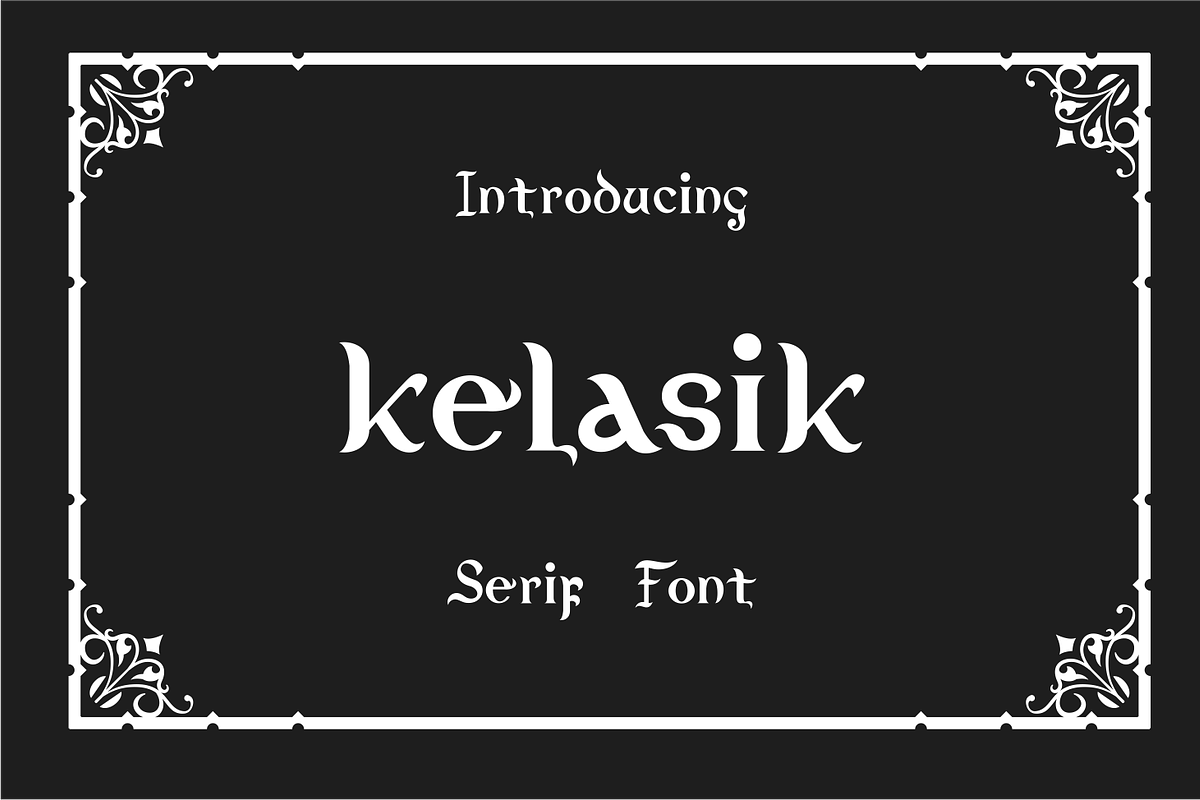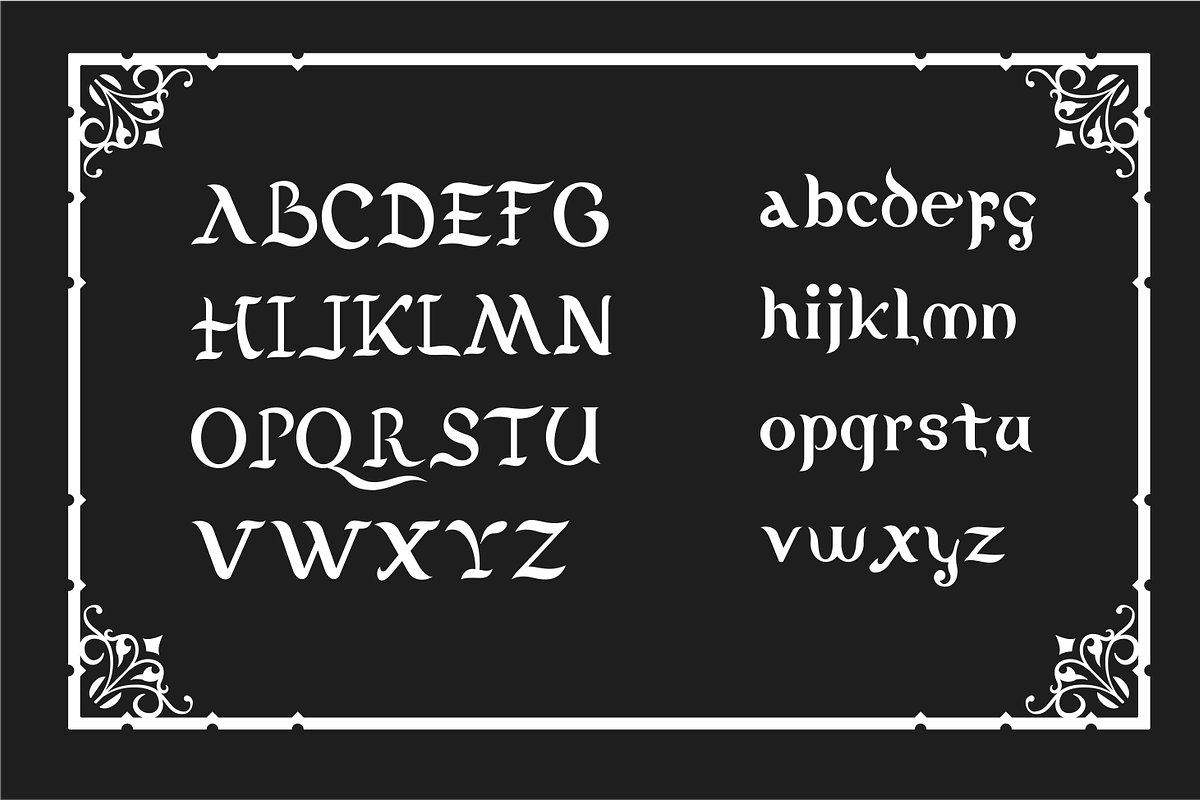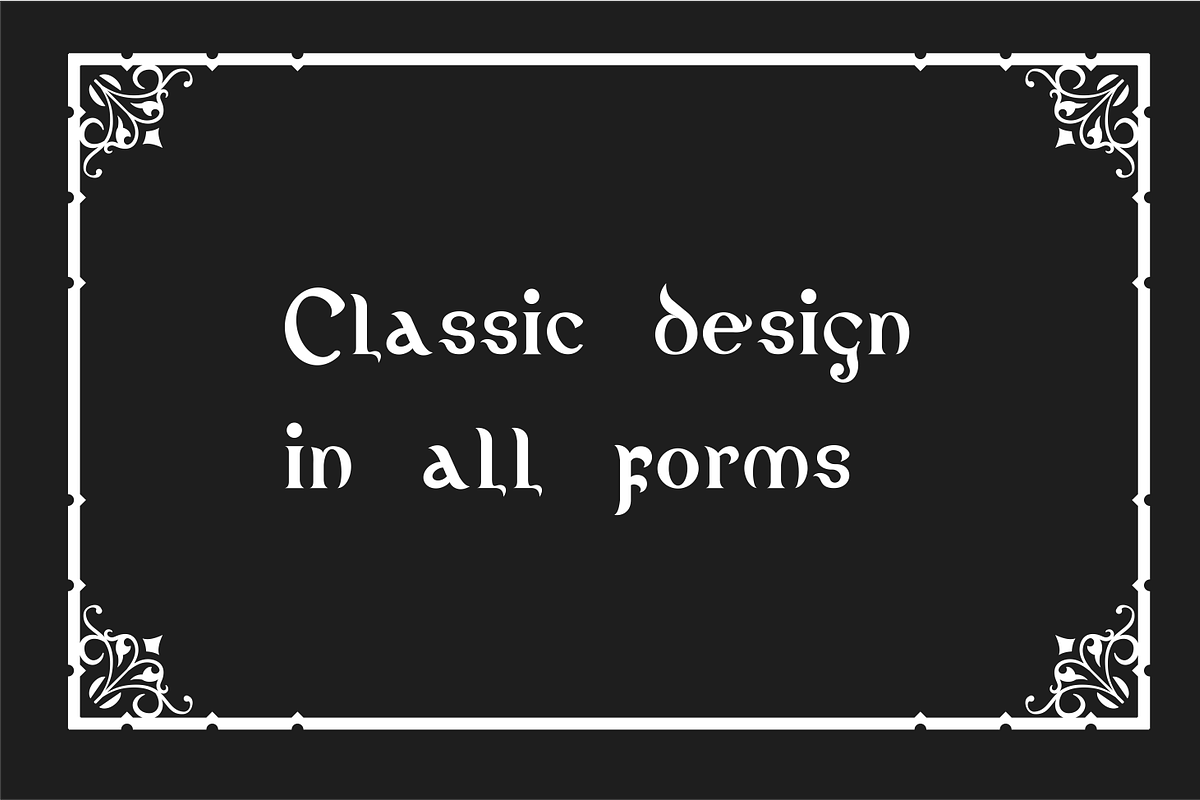
Kelasik Font
this created for beatifu project with unique font
Why Kelasik Font is worth a look
Kelasik Font by Akdesain fits naturally into Branding, posters, packaging, typography.